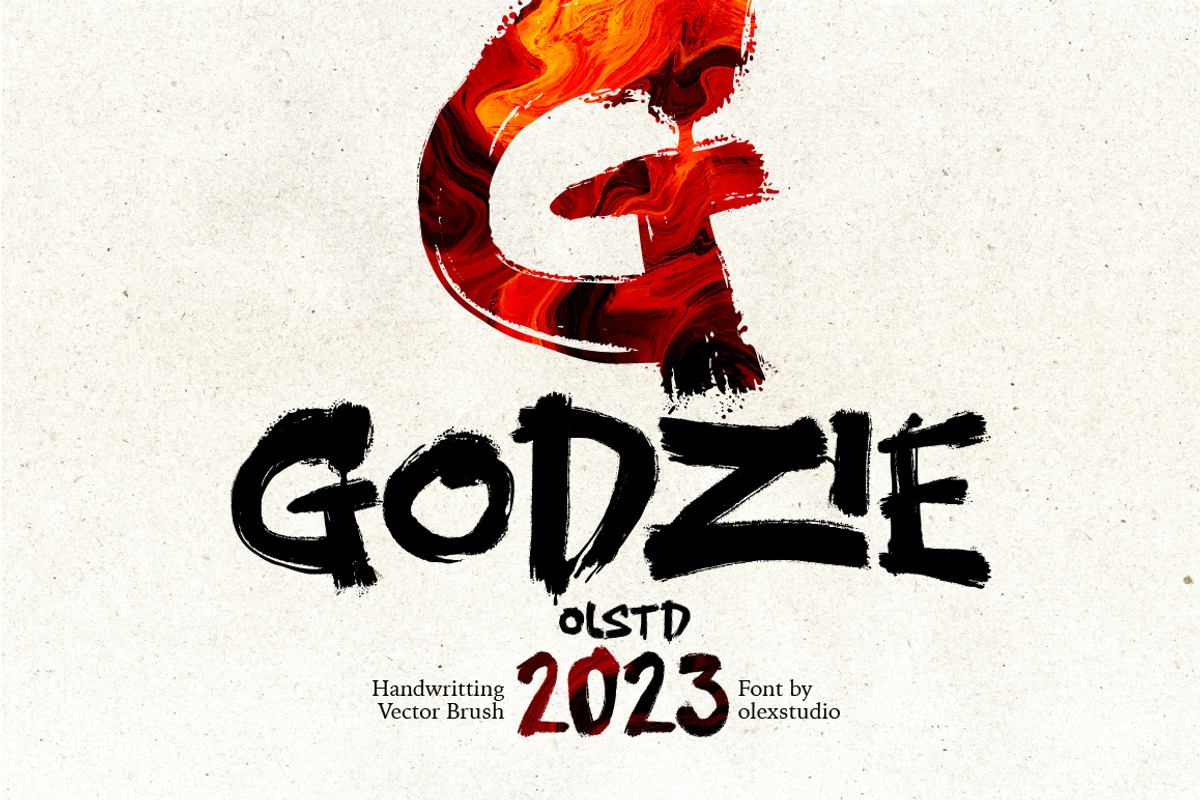
GODZIE Olstd - Handwritten Brush Free Download
GODZIE Olstd Font - Handwritten Brush Free Download
GODZIE Olstd Font - Handwritten Brush Free Download is a creative and expressive brush script typeface that captures the organic beauty of handwritten strokes. With its rough, dynamic texture and fluid curves, this font is perfect for artistic designs, personal projects, social media posts, invitations, and anything that needs a touch of raw, hand-drawn personality.
Using the GODZIE Olstd Font - Handwritten Brush Free Download adds an authentic, handmade feel to your typography. Whether you're designing a brand with a creative, artistic flair or creating a casual, friendly design, this font brings energy and individuality to your project.